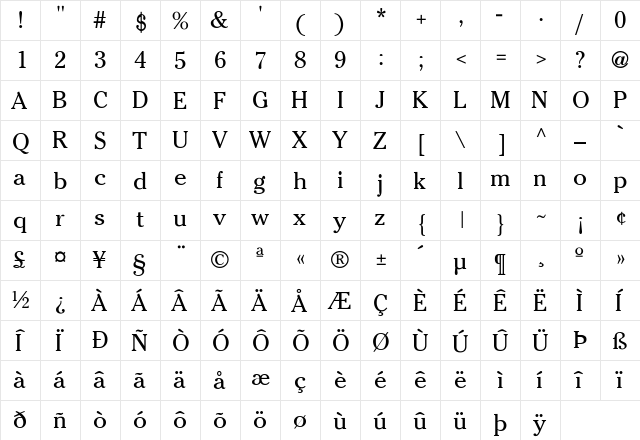
Nottingham Lite Regular Regular
Design Context for Nottingham Lite Regular Typeface
Nottingham Lite Regular is a composed and adaptable typeface that performs quietly and consistently across a wide range of design contexts.